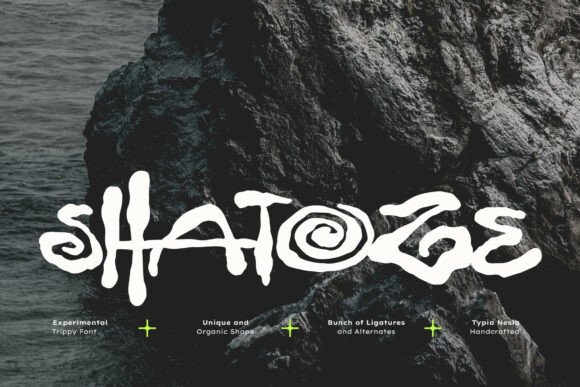
Shatoze Font: Unleash Your Creativity with this Experimental Irregular Quirky Urban Graffiti Font
In the world of typography, fonts play a crucial role in conveying messages, expressing emotions, and creating visual identities. For designers, artists, and marketers, finding the right font can make all the difference in capturing the essence of a brand, product, or event. If you’re looking for a font that embodies the spirit of urban graffiti, punk rock, and street art, look no further than Shatoze Font. In this article, we’ll dive into the world of Shatoze, exploring its unique features, applications, and benefits.
What is Shatoze Font?
Shatoze is an experimental irregular quirky urban graffiti font designed to deliver a raw, expressive, and high-energy look for display purposes. This typeface is perfect for creating unique and disruptive logos, posters, and branding for music festivals, sport events, and any project that requires both unique and experimental. With its irregular, hand-drawn aesthetic and textured, grunge finish, Shatoze captures the punk and street vibe, making it an ideal choice for designers and artists looking to add an edgy touch to their work.
Key Features of Shatoze Font
Shatoze boasts an extensive character set, ligatures, and alternates, allowing designers to deliver a raw, rebellious message that screams originality. Some of its key features include:
- Irregular, hand-drawn aesthetic with a textured, grunge finish
- Extensive character set for versatility
- Ligatures and alternates for creative freedom
- Raw, expressive, and high-energy look for display purposes
- Ideal for music festivals, sport events, and experimental projects
Applications of Shatoze Font
Shatoze is a versatile font that can be used in a variety of applications, including:
- Music festival branding and posters
- Sport event logos and marketing materials
- Urban graffiti and street art projects
- Experimental design and art installations
- Branding and packaging for edgy products
Benefits of Using Shatoze Font
By using Shatoze Font, designers and artists can benefit from:
- A unique and distinctive visual identity
- The ability to convey a raw, rebellious message
- A versatile font that can be used in various applications
- The freedom to experiment and push creative boundaries
- A font that captures the essence of urban graffiti and street art
- Experiment with different colors and textures to enhance the grunge effect
- Use the ligatures and alternates to add creative flair to your designs
- Combine Shatoze with other fonts to create a unique visual identity
- Don’t be afraid to push the boundaries of typography and design
Shatoze Font is a game-changer for designers, artists, and marketers looking to add an edgy touch to their work. With its irregular, hand-drawn aesthetic and textured, grunge finish, this font captures the essence of urban graffiti and street art. Whether you’re creating branding for a music festival, designing a poster for a sport event, or simply looking to experiment with new typography, Shatoze is the perfect choice. Download Shatoze today and unleash your creativity!